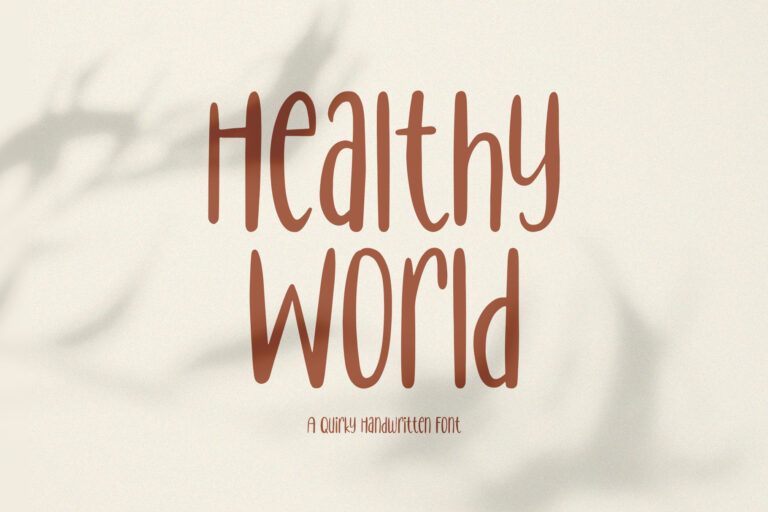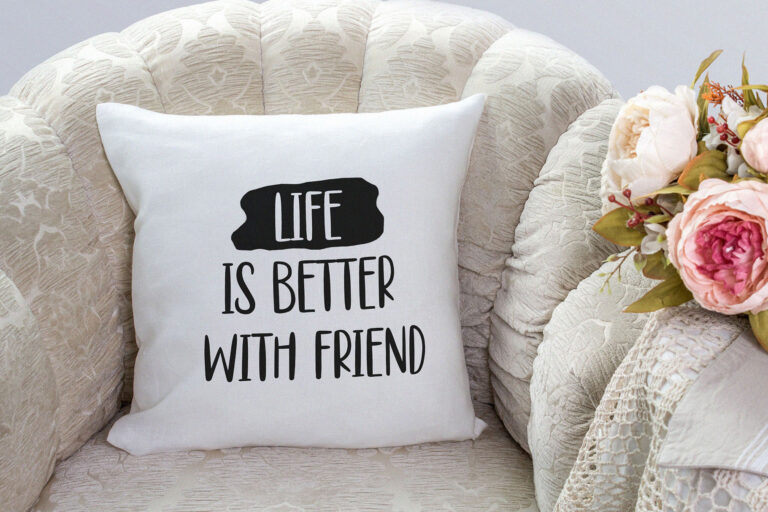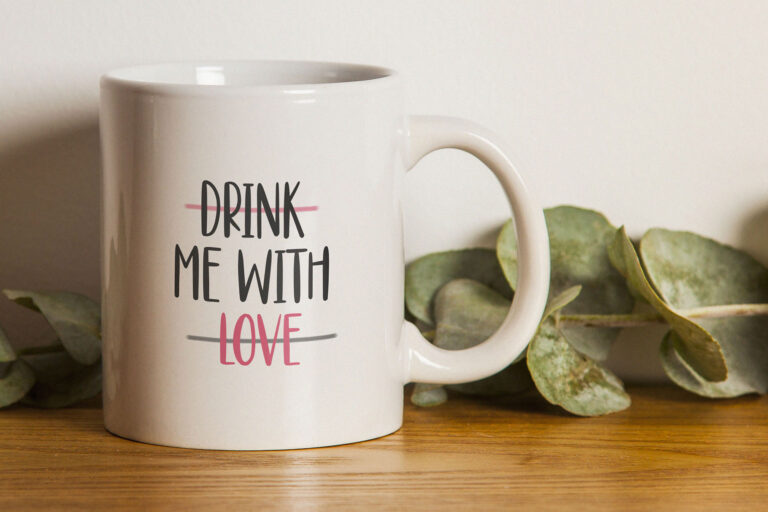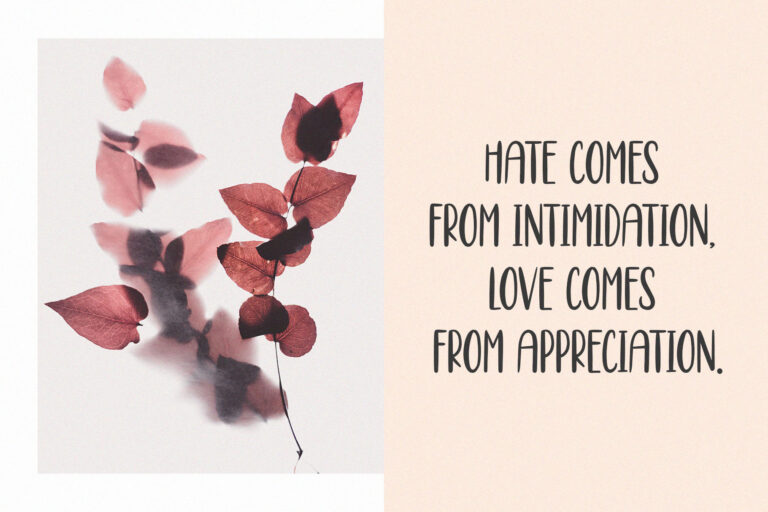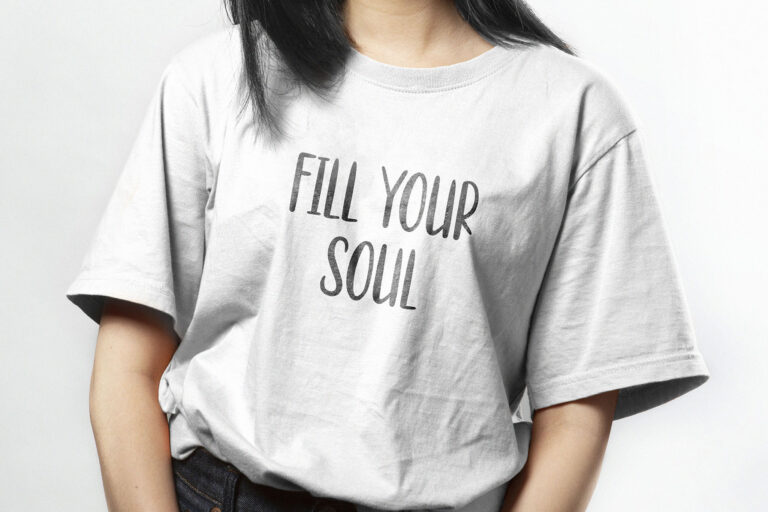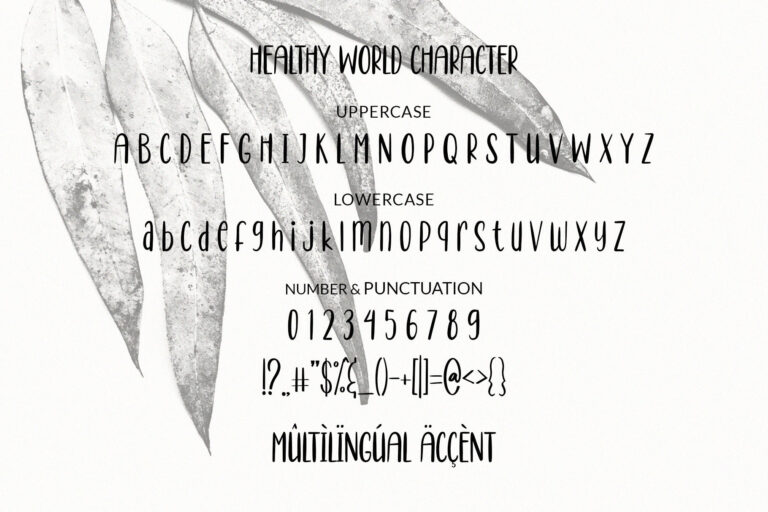
Healthy World // Handwritten Font
Healthy World is a sweet, funny, cute handwritten font. Clean and soft, this font is the perfect fit for all of your crafty DIY projects, cricut, logos, branding, social media, etc.